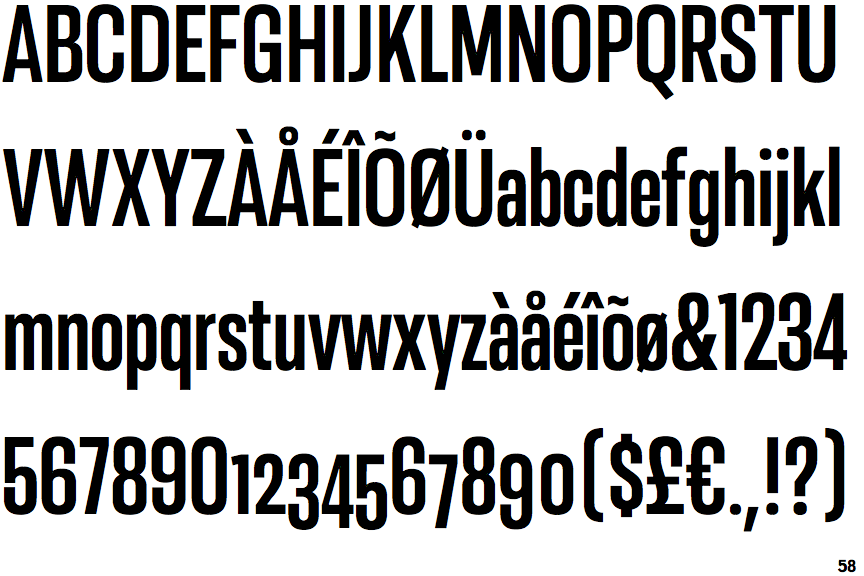
Resolve Sans Bold Condensed
One of the Tallest sans-serif fonts for narrow spaces.
Designers: Emil Bertell and Teo Tuominen Year: 2020 Publisher: Fenotype An OpenType font that includes both lining and oldstyle figures. |